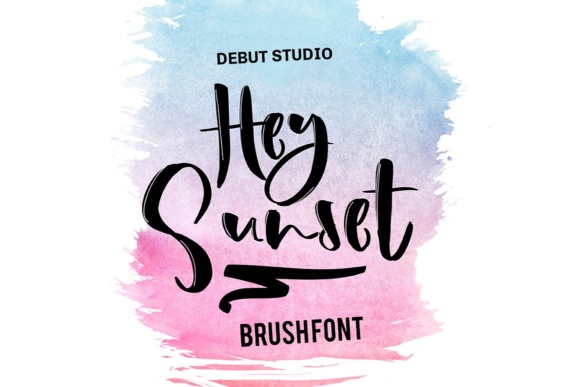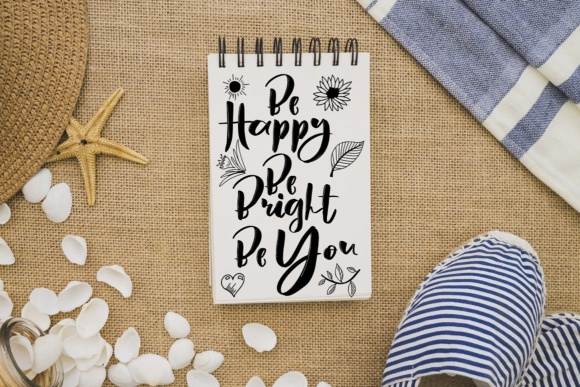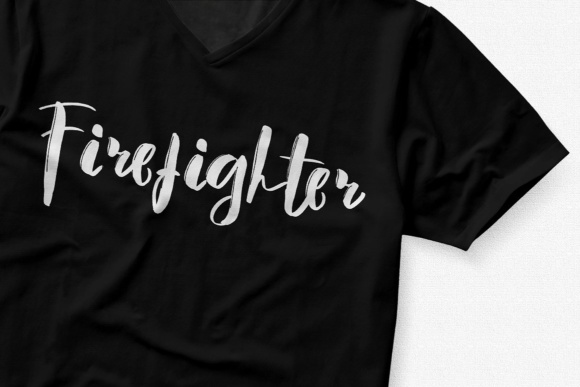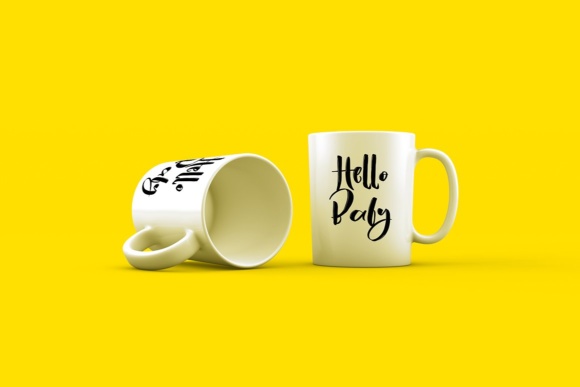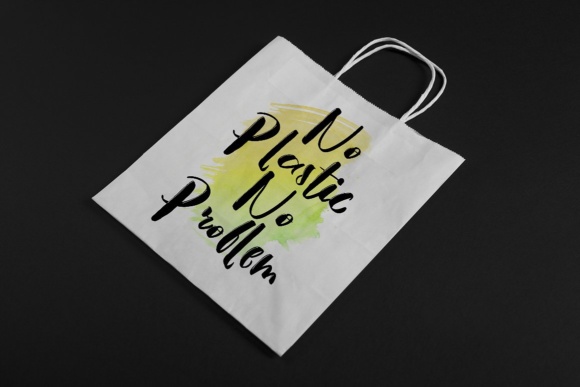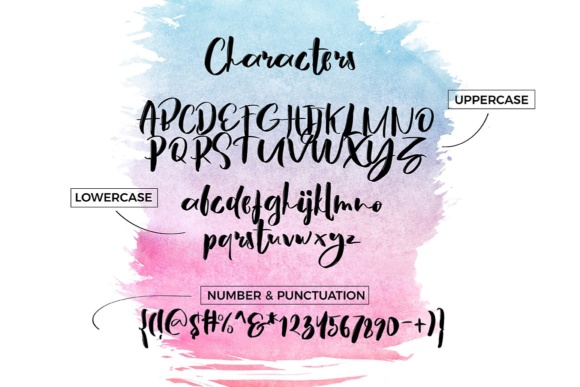
Hey Sunset Font
About Hey Sunset Font
Hey Sunset is a simple brush font for creating awesome designs. Hey Sunset is suitable for TShirt Designs, Brochures, Mug Designs, Posters, and much more!